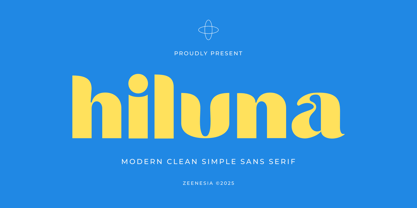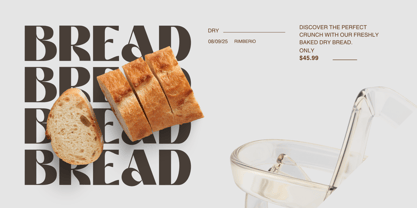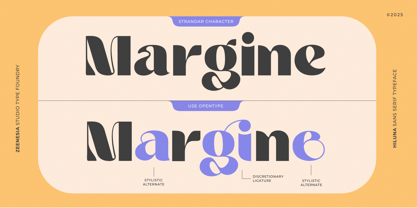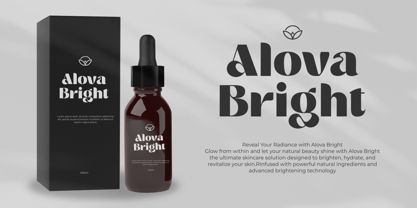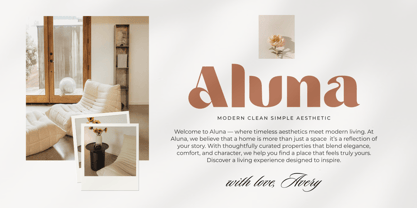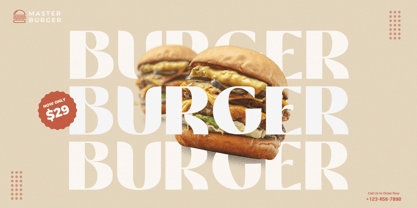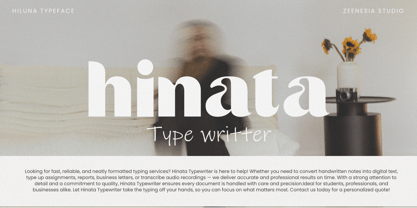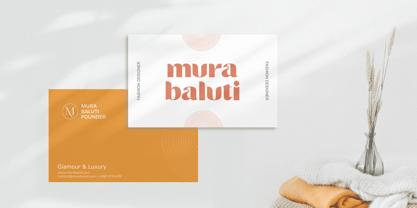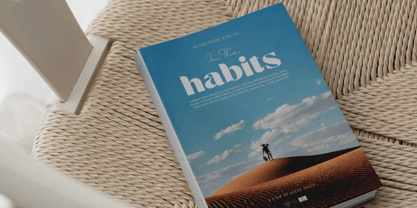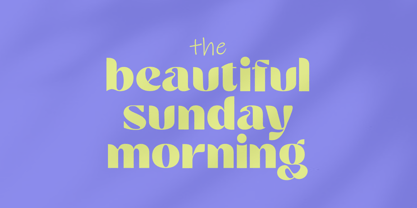
Hiluna
by Zeenesia Studio
The Hiluna Font Family was designed by Doni Purwoko and published by Zeenesia Studio. Hiluna contains 2 styles and family package options. More about this family
Hiluna is a unique sans-serif font that blends modern simplicity with subtle character. Designed to stand out while remaining highly legible, Hiluna features clean lines, gentle curves, and distinctive letterforms that give it a fresh and stylish personality. Its versatile nature makes it perfect for branding, editorial designs, logos, and digital projects. Whether used in bold headlines or elegant subtext, Hiluna brings a refined yet unconventional feel to any layout.